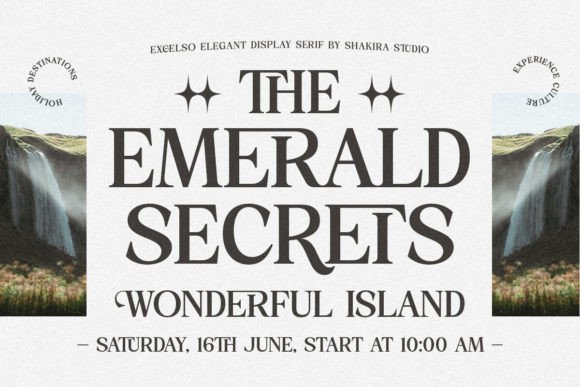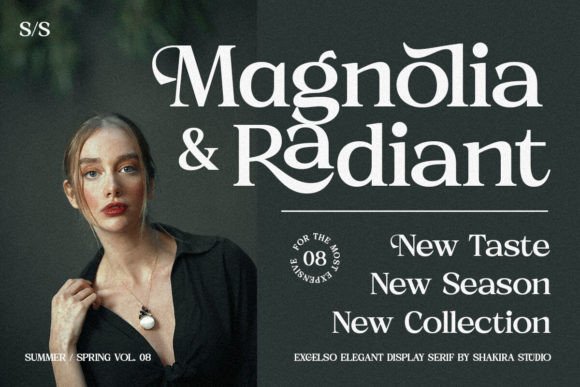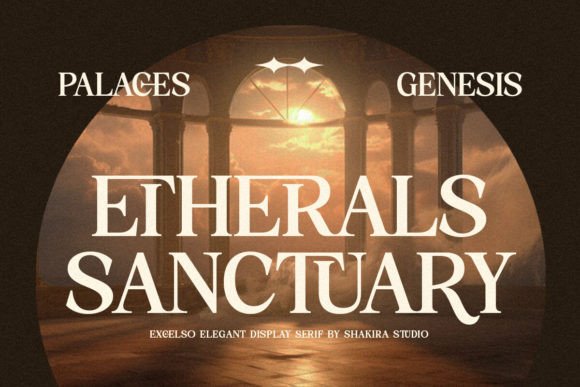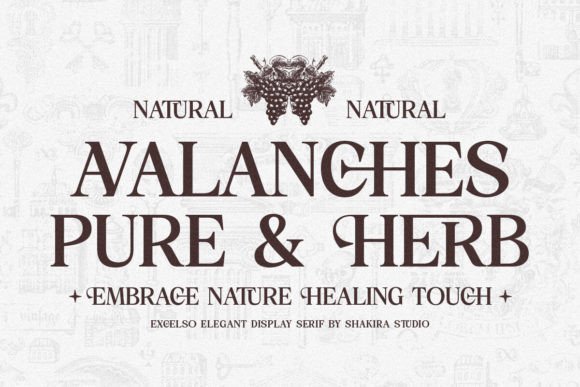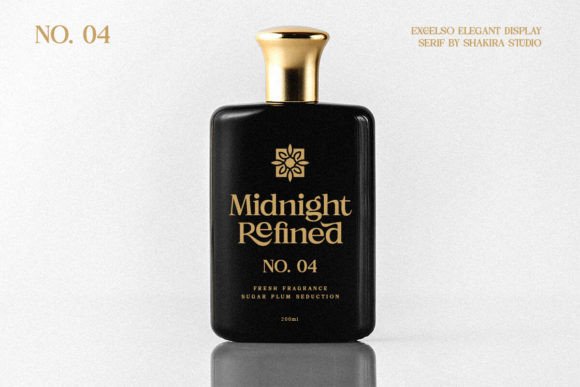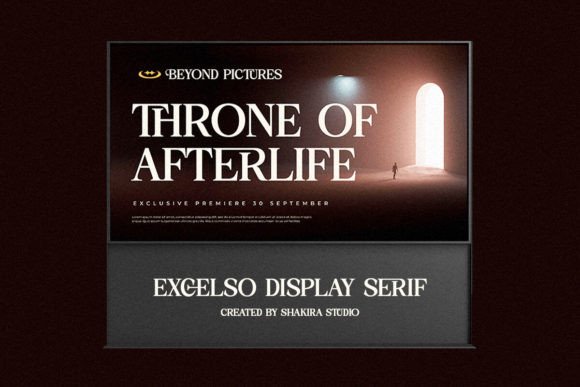
Introducing Excelso Font: Elevate Your Designs with Elegance and Sophistication
In the world of typography, the right font can make all the difference in transforming a design from ordinary to extraordinary. For designers and crafters seeking to infuse their projects with luxury and elegance, Excelso Font is an exceptional choice. This exquisite serif font is meticulously designed to bring a touch of sophistication to a wide range of design works, from editorial projects to branding endeavors.
The Essence of Excelso Font
Excelso is an elegant serif font that exudes refinement and poise. Its smooth and bold serif characteristics make it an ideal choice for projects that demand a classic and classy aesthetic. The font is available in two versatile versions: regular and italic, offering great flexibility to suit various design purposes. Whether you’re working on a high-end editorial piece, a luxury brand’s visual identity, or any project that requires a sophisticated touch, Excelso Font is engineered to meet your typographic needs.
Key Features of Excelso Font
- Elegant Serif Design: Excelso boasts a beautifully crafted serif design that adds a touch of elegance to any design project.
- Regular and Italic Versions: The font comes in two styles, providing versatility for different design applications and allowing for more dynamic text compositions.
- Support for Alternates and Ligatures: Excelso supports alternates and ligatures, enabling designers to add unique touches to their typography and create more visually appealing text.
- Classic and Classy Touch: The font’s classic serif characteristics make it perfect for projects that require a sophisticated and timeless look.
Applications of Excelso Font
Excelso Font’s versatility and elegant design make it suitable for a variety of applications:
- Editorial Design: Enhance the readability and aesthetic appeal of magazines, newspapers, and books with Excelso’s clear and elegant typography.
- Branding and Logo Design: Create a lasting impression with a sophisticated brand identity that leverages Excelso’s luxurious feel.
- Advertising and Marketing Materials: Stand out in the competitive world of advertising with elegant and compelling typography.
- Packaging Design: Add a touch of luxury to product packaging and elevate the perceived value of your offerings.
- Web Design: Enhance the user experience on your website with a font that combines readability with elegance.
Why Choose Excelso Font?
In a sea of fonts, Excelso stands out for its unique blend of elegance, versatility, and classic appeal. Here are a few reasons why designers and crafters are gravitating towards Excelso:
- Unique Aesthetic: Excelso offers a distinct look that can set your designs apart from the crowd.
- High Readability: Despite its elegant and sometimes intricate design, Excelso maintains high readability across various sizes and applications.
- Flexibility: With regular and italic versions, plus support for alternates and ligatures, Excelso provides the flexibility needed for creative and diverse design projects.
Excelso Font is a remarkable addition to the world of typography, offering designers and crafters a tool to imbue their projects with luxury, elegance, and a classic touch. Its versatile design, combined with support for alternates and ligatures, makes it an excellent choice for a broad spectrum of design applications. Whether you’re aiming to create a sophisticated brand identity, enhance editorial content, or simply add a touch of elegance to your designs, Excelso Font is poised to become your go-to typeface for achieving that timeless and classy look.